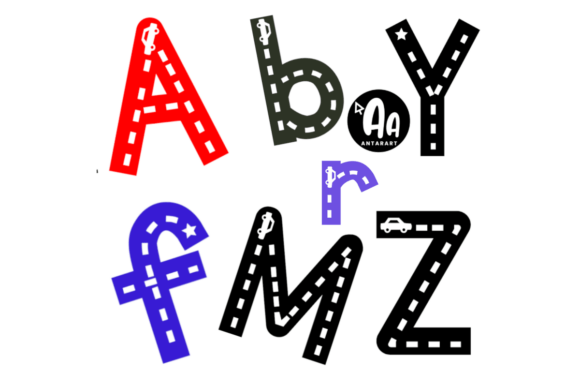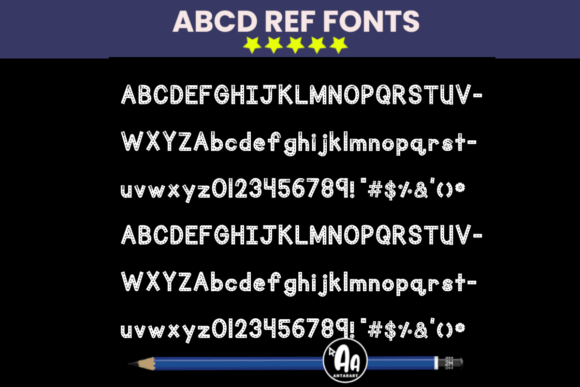
Abcd Ref Alphabet Tracing Road Mats Font: A Fun and Interactive Way to Learn Letter Formation and Fine Motor Skills
Are you looking for a engaging and interactive way to teach children letter formation and fine motor skills? Look no further than the Abcd Ref Alphabet Tracing Road Mats Font. This innovative tool is designed to make handwriting practice playful and fun, while also providing a comprehensive approach to learning letter formation and directionality.
What are Alphabet Tracing Road Mats?
The Alphabet Tracing Road Mats are a set of printable mats that feature uppercase, lowercase, and number tracing exercises. Each character is filled with dotted “road” lines that children can trace with their fingers or a marker. The mats are designed to resemble a road map, complete with vehicle icons and star-start markers that cue correct starting points and writing direction.
Benefits of Alphabet Tracing Road Mats
The Alphabet Tracing Road Mats offer a range of benefits for children, including:
- Improved fine motor skills: The mats help children develop the fine motor skills needed for handwriting, including finger dexterity and coordination.
- Letter formation and directionality: The star-start markers and vehicle icons help children learn proper letter formation and directionality, making it easier for them to write letters and numbers correctly.
- Playful learning: The mats make handwriting practice fun and engaging, allowing children to “drive” toy cars along the path or trace with markers.
- Versatility: The mats can be used in a variety of settings, including occupational therapy sessions, speech and language support, special education, homeschool, and classroom literacy centers.
Features of Alphabet Tracing Road Mats
The Alphabet Tracing Road Mats come with a range of features that make them an effective and engaging tool for learning, including:
- Two-style options: The mats come in two styles, featuring car and star icons, allowing children to choose their preferred method of practice.
- Dotted letter and number tracing: The mats feature dotted lines that guide children as they practice tracing letters and numbers.
- Uppercase, lowercase, and number mats: The set includes printable mats for uppercase, lowercase, and numbers, making it easy to practice a range of handwriting skills.
- Laminable and reusable: The mats can be laminated and used with dry-erase markers, making them a durable and long-lasting resource.
How to Use Alphabet Tracing Road Mats
The Alphabet Tracing Road Mats are easy to use and can be incorporated into a range of learning activities, including:
- Occupational therapy sessions: The mats can be used to help children develop fine motor skills and handwriting abilities.
- Classroom literacy centers: The mats can be used as a fun and engaging way to practice handwriting and letter formation.
- Homeschool and special education: The mats can be used to provide additional support for children who need extra practice with handwriting and letter formation.
If you’re a designer or crafter looking to create your own Alphabet Tracing Road Mats, here are a few tips to keep in mind:
- Use a clear and easy-to-read font: Choose a font that is easy to read and understand, making it simple for children to learn letter formation.
- Incorporate engaging visuals: Use fun and engaging visuals, such as vehicle icons and star-start markers, to make the mats more engaging and interactive.
- Make it versatile: Consider creating mats that can be used in a range of settings, including occupational therapy sessions and classroom literacy centers.
By following these tips and using the Alphabet Tracing Road Mats, you can create a fun and interactive way for children to learn letter formation and fine motor skills.
| Font Name | Abcd Ref Alphabet Tracing Road Mats Font |
The Abcd Ref Alphabet Tracing Road Mats Font is a valuable resource for anyone looking to teach children letter formation and fine motor skills. With its engaging and interactive design, the mats make handwriting practice fun and enjoyable, while also providing a comprehensive approach to learning. Whether you’re an occupational therapist, teacher, or parent, the Alphabet Tracing Road Mats are a great way to support children’s learning and development.